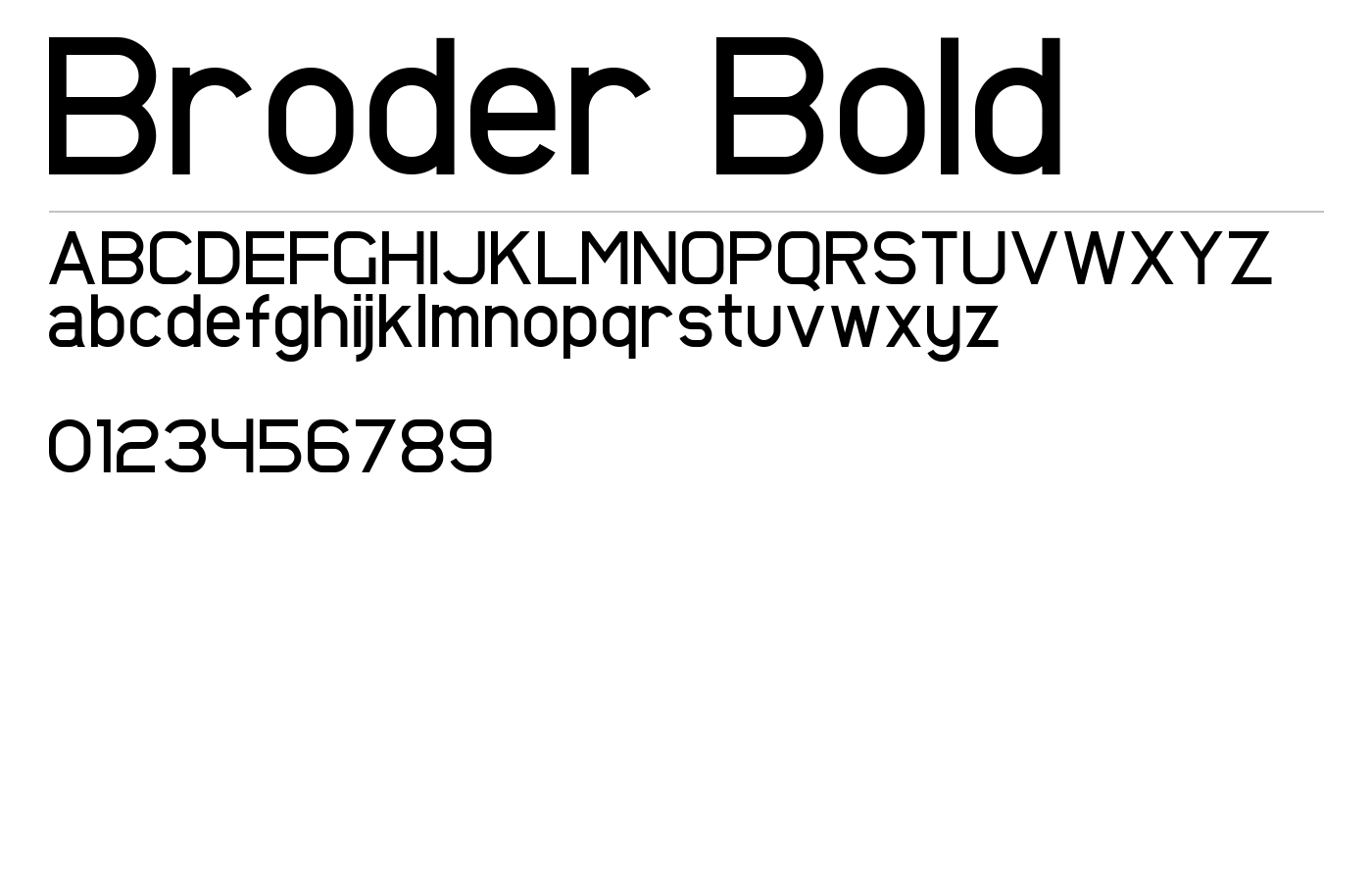
Broder Bold is a modern sans serif font characterized by its bold weight, narrow width, and clean geometric shapes. Its uniform stroke contrast and single-story letterforms give it a sleek, contemporary feel, making it ideal for headlines, logos, and digital use where strong readability and a professional yet approachable tone are needed. This font works well in branding and editorial projects that require a straightforward, modern aesthetic.
Broder Bold Font
About Broder Bold Font